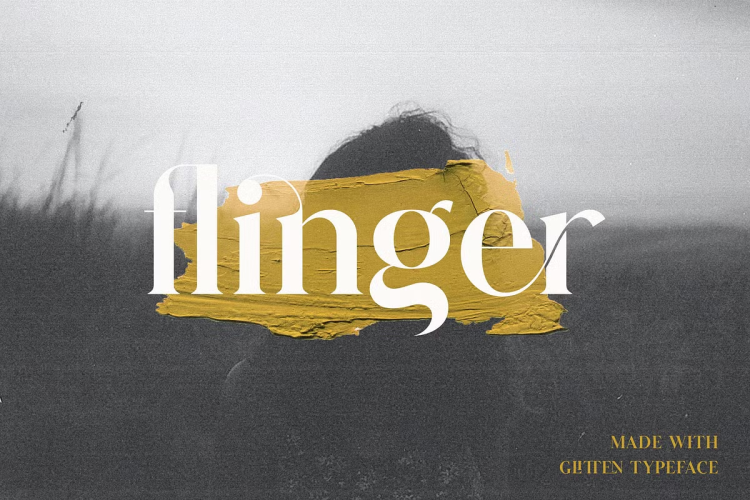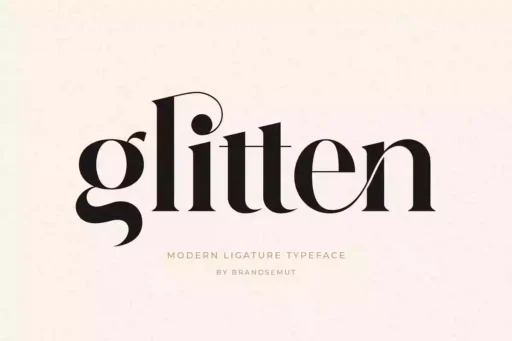
Glitten Font
Introducing Glitten font, a ligature serif font by BrandSemut, which combines modern aesthetics with classic refinement for project enhancement. Because of its sleek lines and smooth curves, Glitten adds sophistication to headings and logos as well as branding materials, magazines, product packaging, and invitation designs.
Using OpenType technology Glitten delivers 103 ligatures together with multiple alternate characters as well as numeral and punctuation variations and highly detailed language support for exceptional versatility and elegant design options.
Where Glitten Font works best
Glitten Font gives long-form text a classic, trustworthy rhythm — ideal for magazine spreads, annual reports and book interiors.
Pair Glitten Font with generous letter-spacing for wordmarks in fashion, hospitality, wine and jewellery branding.
Use Glitten Font for slide titles in Keynote, PowerPoint or Google Slides to add authority without looking dated.
What is Glitten Font good for?
Glitten Font is a Serif Fonts typeface tagged Branding, Classic, Creative, Editorial. It works well for headlines, logos, posters, social media graphics and branding projects that need a distinctive serif fonts look.